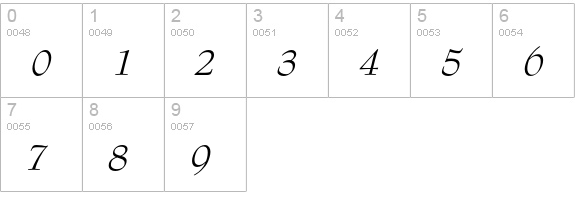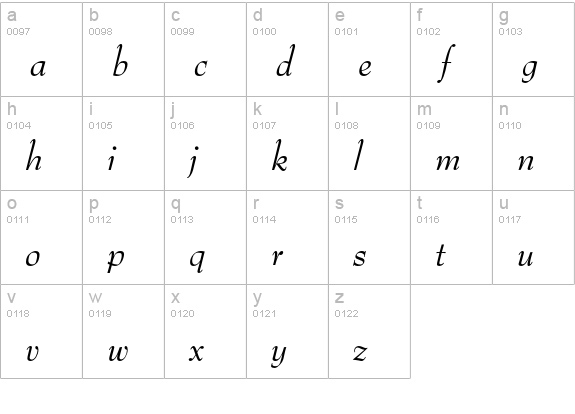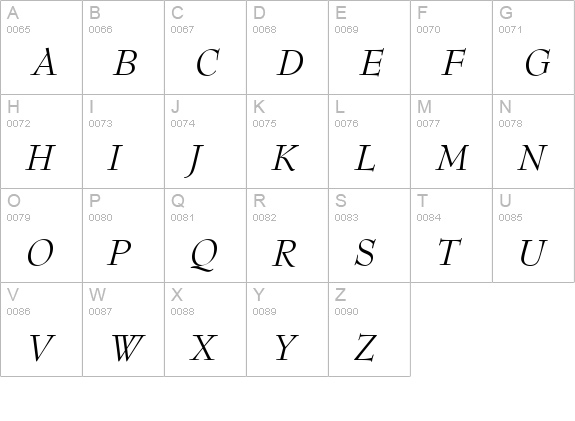
Bernhard Modern Italic is a distinctive, italic variant in the Bernhard typeface family \xE2\x80\x94 well suited to design and typography projects.
Bernhard Modern Italic font is a timeless and elegant typeface that exudes sophistication and class. Its graceful italic style adds a touch of refinement to any design project, making it the perfect choice for conveying a sense of luxury and sophistication. The flowing lines and delicate curves of the Bernhard Modern Italic font create a sense of movement and fluidity, adding a dynamic element to your text. This font is freely available to download at FontsMarket.com, making it easily accessible for designers and creatives looking to elevate their work with a touch of elegance. Whether you're designing a wedding invitation, creating a logo for a high-end brand, or crafting a stylish editorial layout, Bernhard Modern Italic font is sure to make a lasting impression. With its classic yet contemporary design, Bernhard Modern Italic font is versatile enough to be used in a variety of design projects, from print materials to digital media. Its timeless appeal and refined aesthetic make it a go-to choice for designers seeking a sophisticated and polished look. Elevate your designs with the beauty and grace of Bernhard Modern Italic font, available for free download at FontsMarket.com.